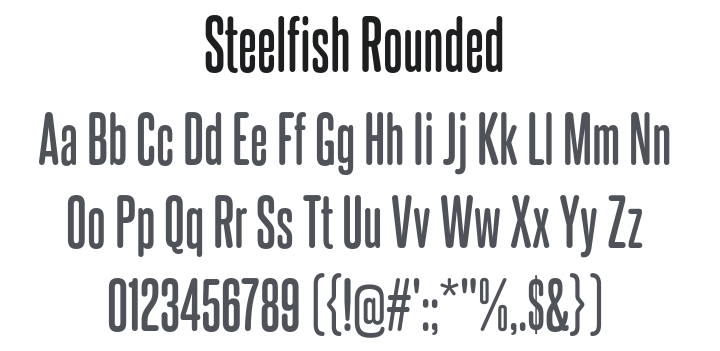
Steelfish Rounded Font
About Steelfish Rounded
Steelfish Rounded softens the bold geometry of the original Steelfish with smooth terminals and a warmer tone. Its tall, narrow forms save space while projecting confidence, striking a balance between strength and approachability. Ideal for headlines, packaging, and branding that need impact without aggression, it remains clear and legible even in tight layouts. With support for Latin, Greek, Cyrillic, and Vietnamese scripts, Steelfish Rounded brings a unified, friendly voice to global design…efficient, modern, and unmistakably inviting.